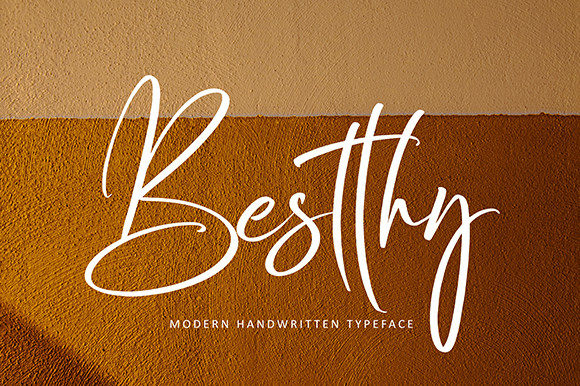
Welcome to the world of Besthy Font, an extraordinary script typeface that will ignite your creativity and elevate your designs to new heights. With its captivating curves and graceful lines, Besthy is an elegant and beautifully flowing font that will lend a touch of sophistication to any project.
Crafted by the talented hands of Pineungtype & Missinklab, Besthy is a versatile font family perfect for a wide range of applications. Whether you're creating stunning quotes, eye-catching logos, captivating blog headers, or stylish posters, Besthy will help you convey your message with flair and individuality.
Let Besthy be your creative partner as you embark on a journey of artistic expression. Use it to design invitations that exude elegance, create stationery that reflects your unique style, or craft branding materials that leave a lasting impression. The possibilities are endless with Besthy Font by your side.
But Besthy is more than just a beautiful font; it's an experience. Immerse yourself in the world of calligraphy and let your imagination run wild. Besthy will take your designs to the next level, captivating your audience and leaving them in awe.
So why settle for ordinary fonts when you can have Besthy? Discover the limitless possibilities that await you with this elegant script font. Let your creativity flourish and create designs that speak to the heart.